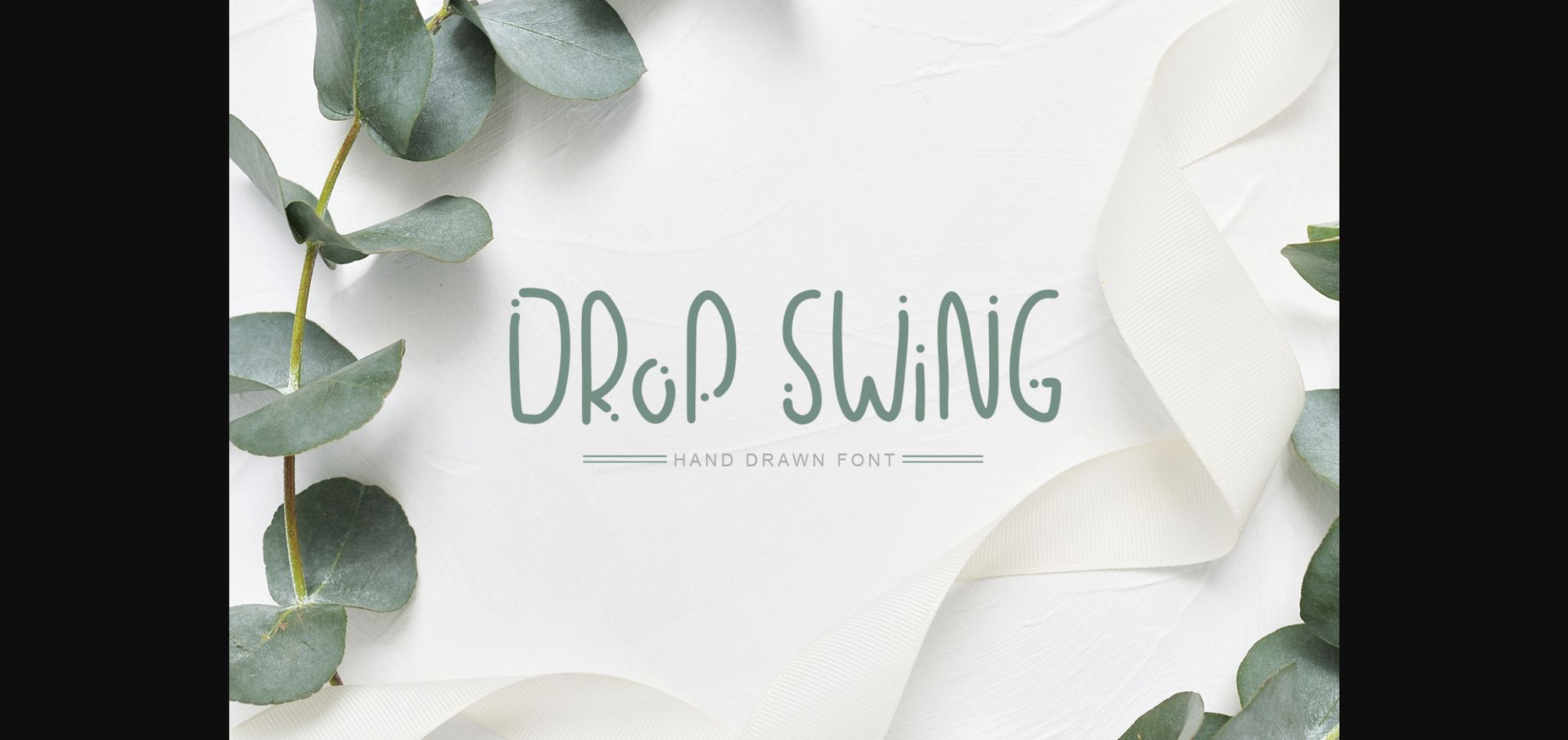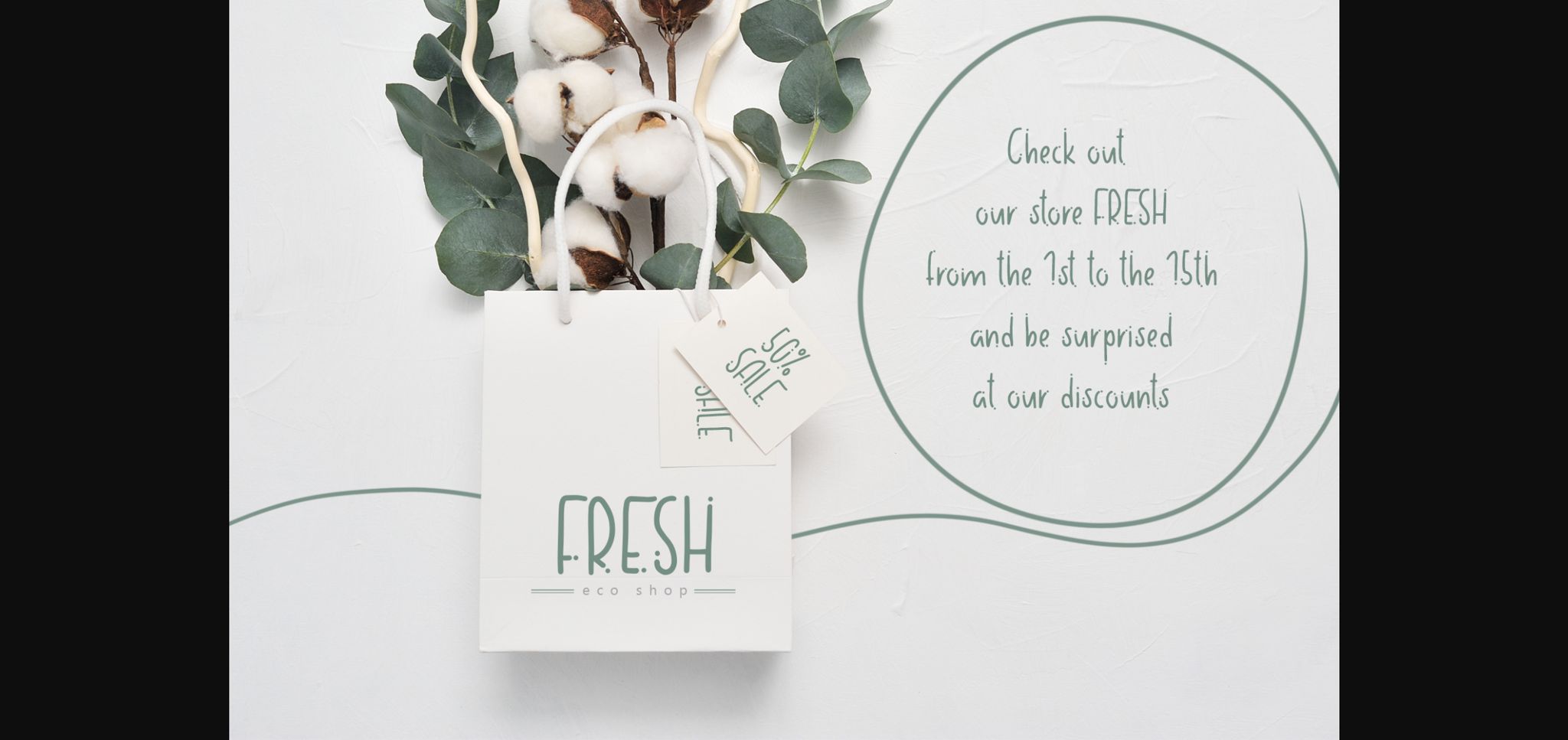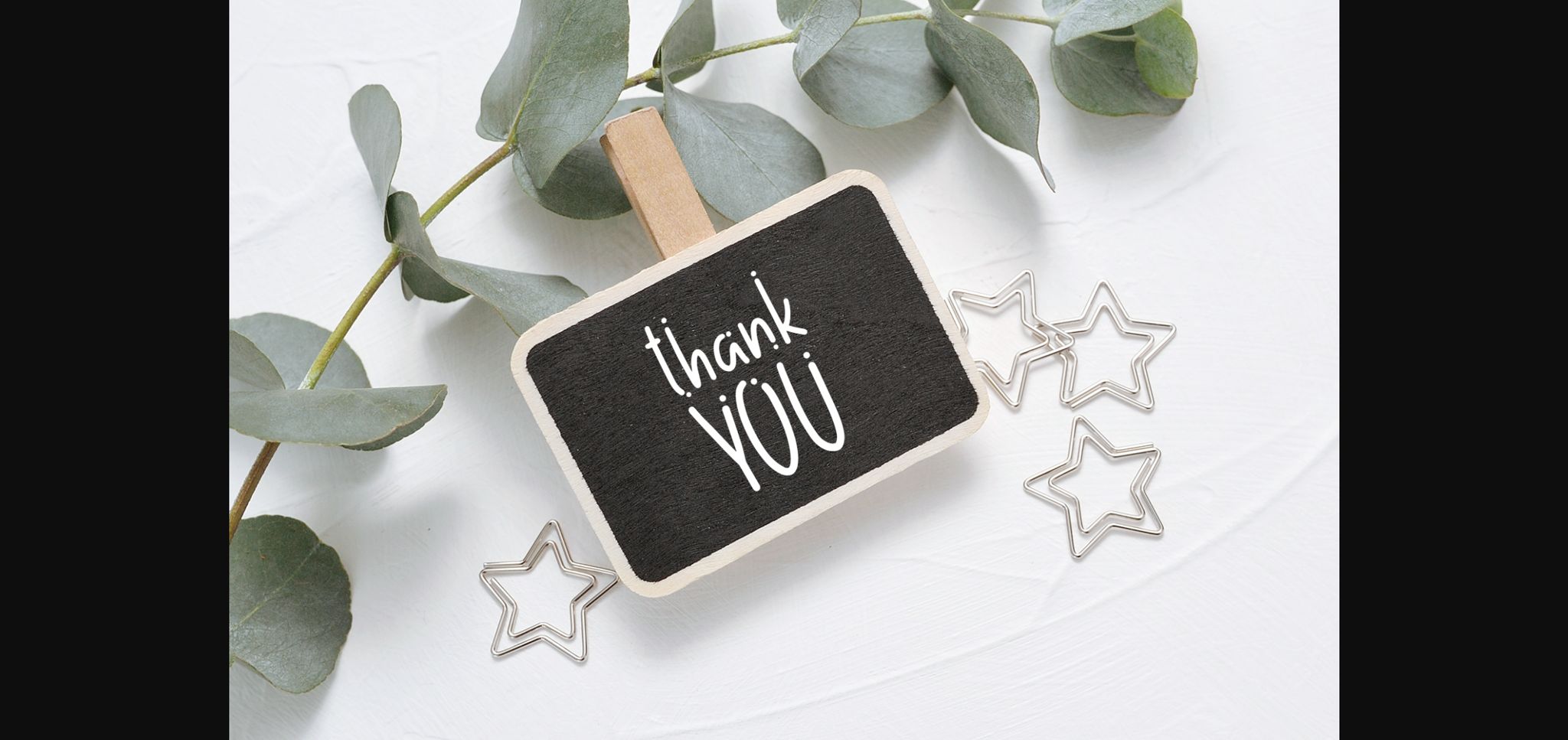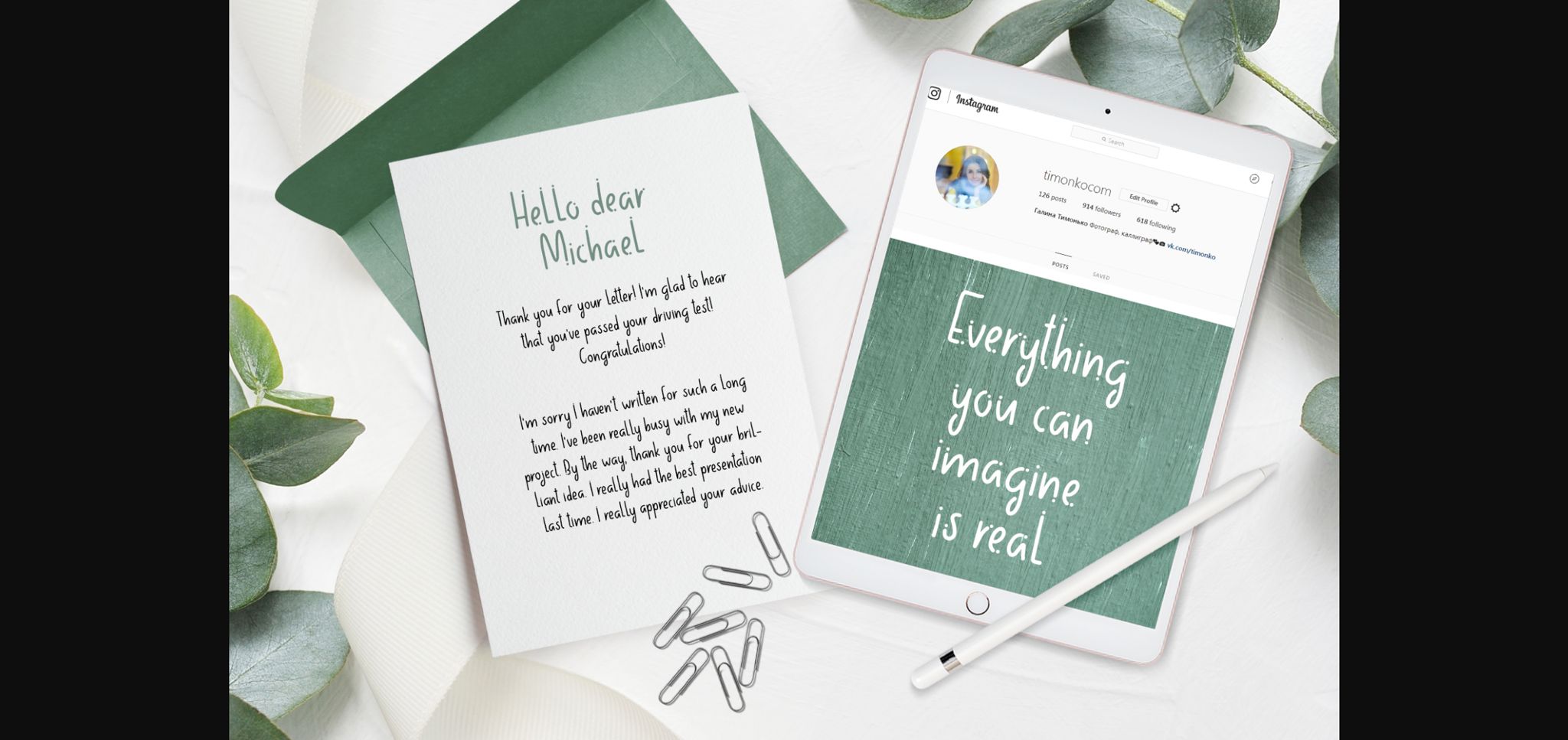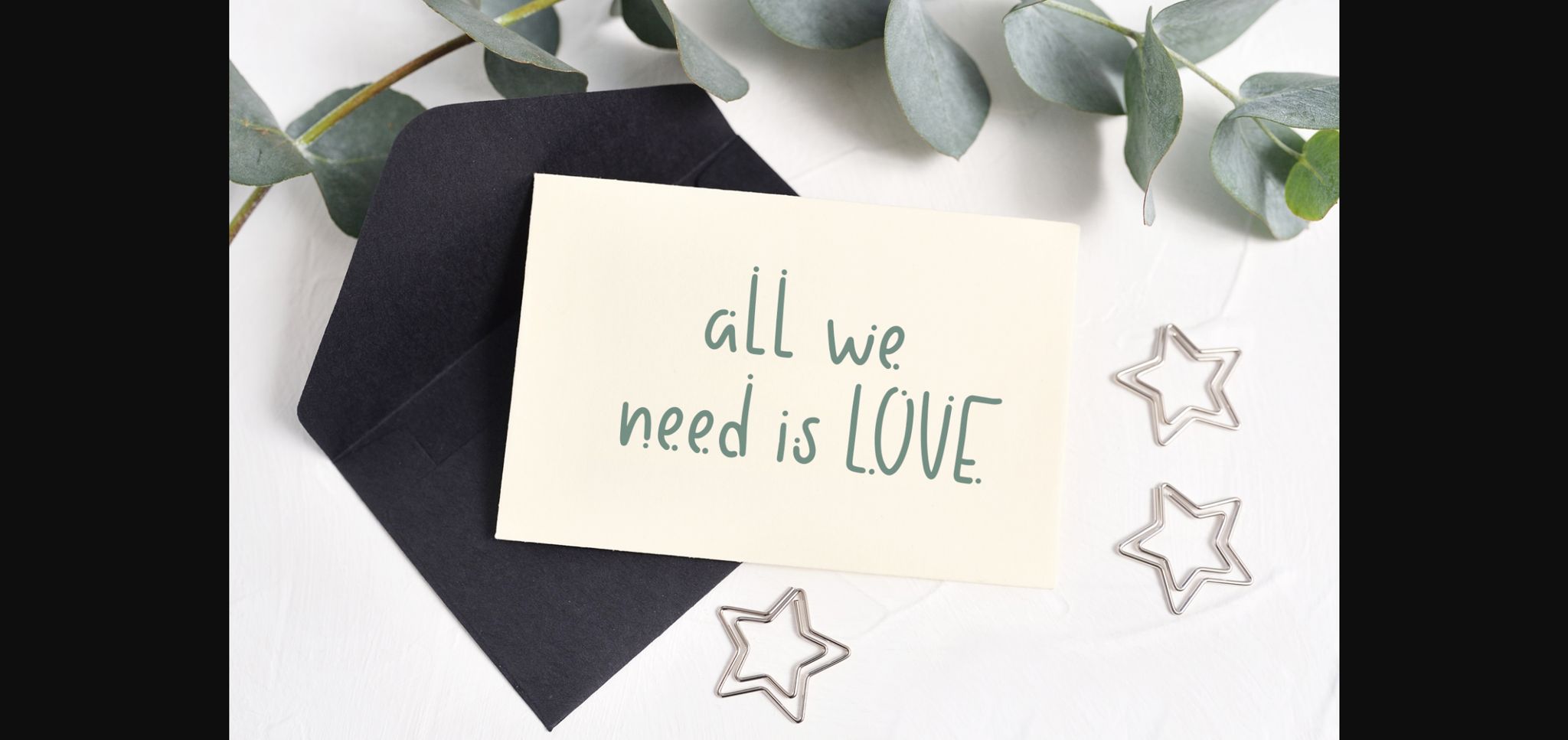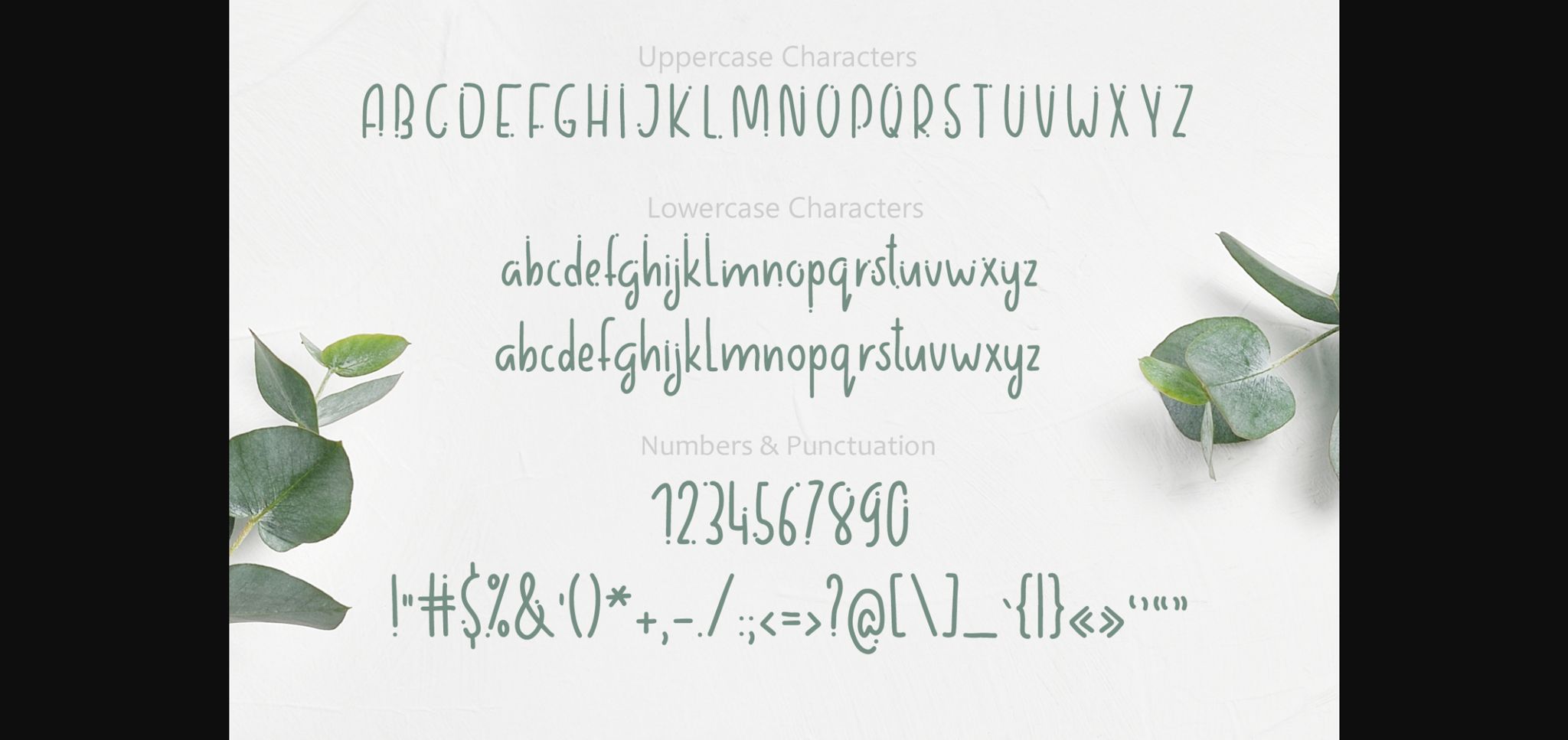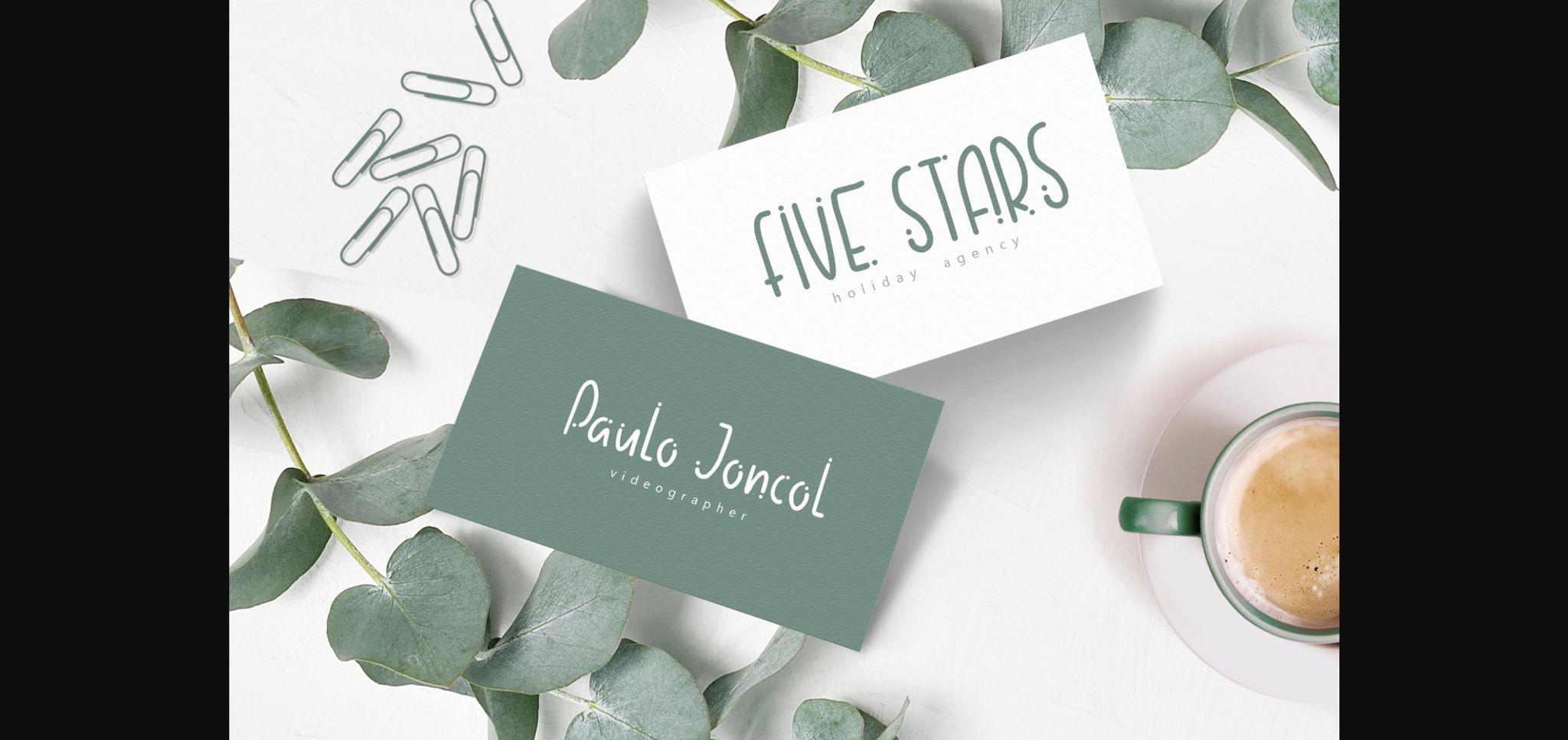
Drop Swing Font
About Drop Swing Font
Drop Swing is the perfect font addition to any crafter’s vault. It features cute dots that will make any design stand out.